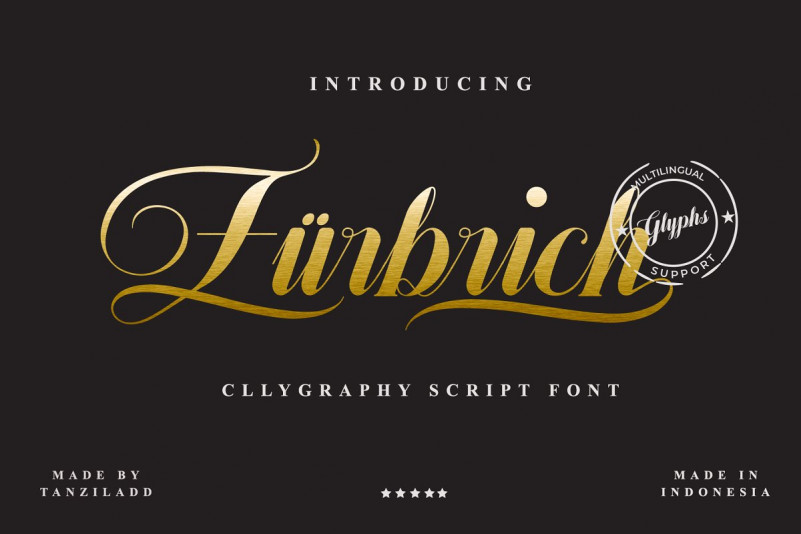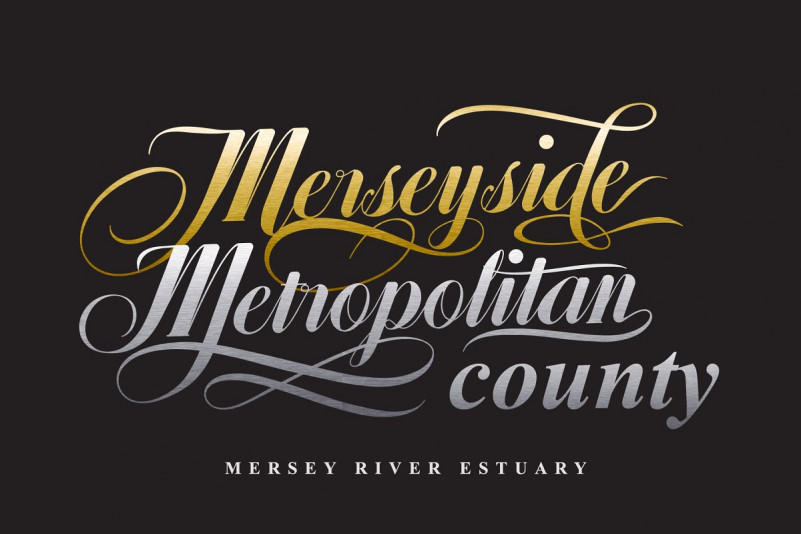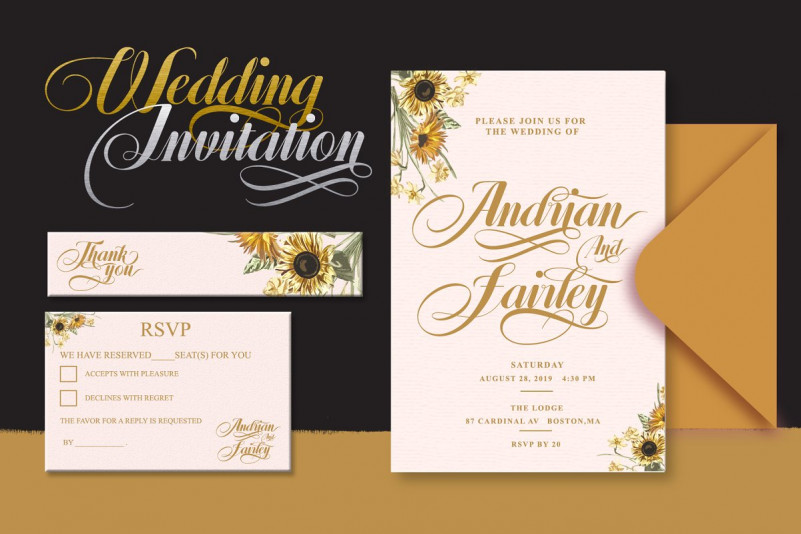
Zürbrich Font
Zürbrich is a beautifully classic script. It has cleanly looping ascenders and descenders as well as elegant uppercase forms. Classic, yet free spirited, it is a typestyle for a wide variety of use it is very soft and has fast curves, while its low slant angle makes it very legible.